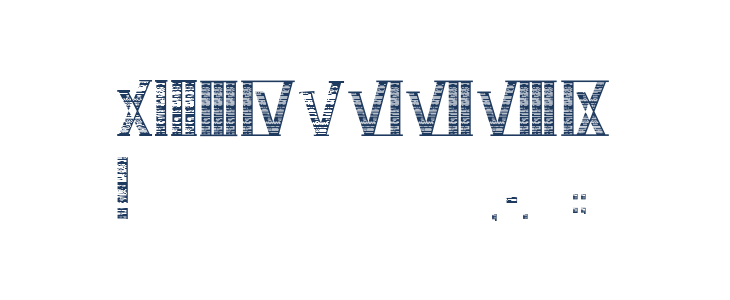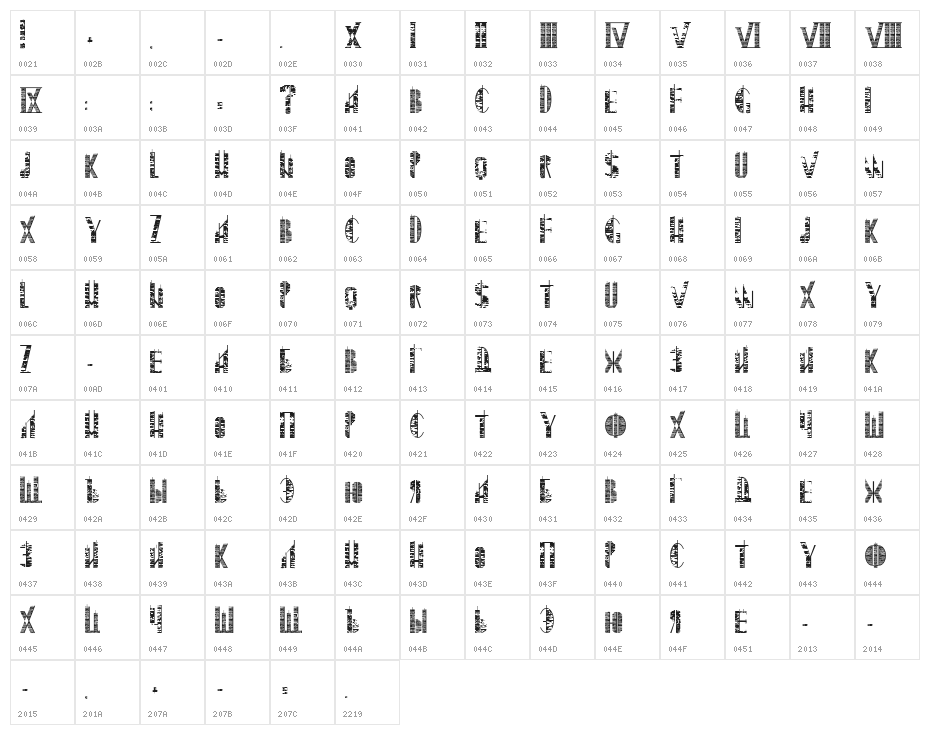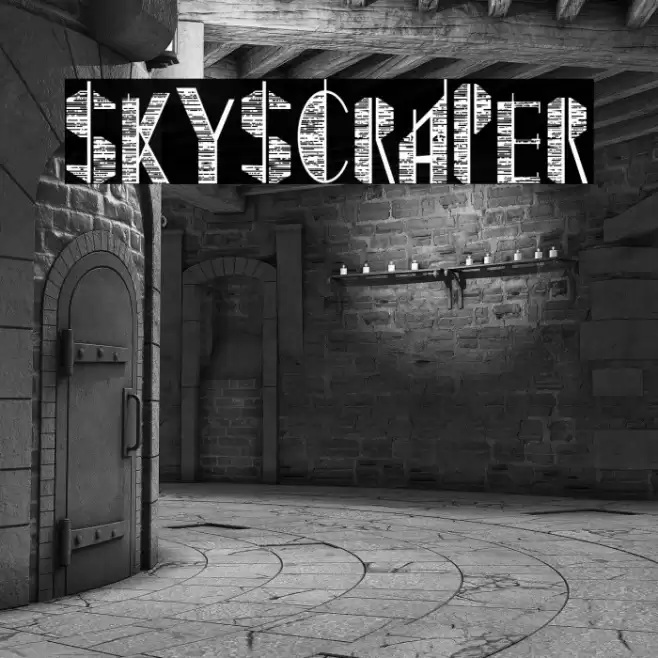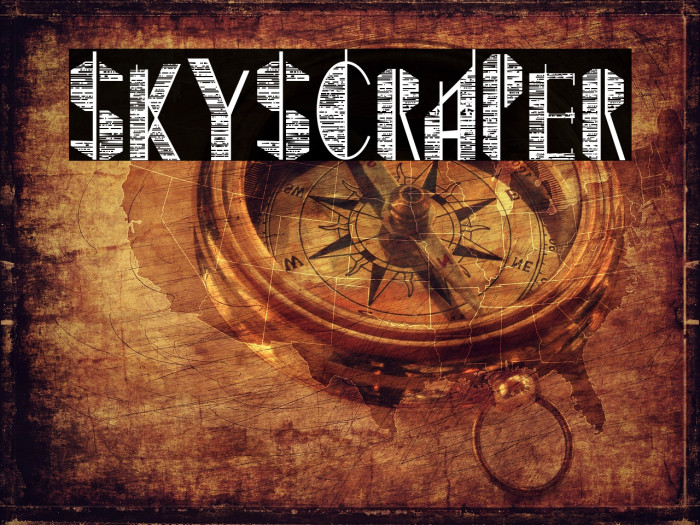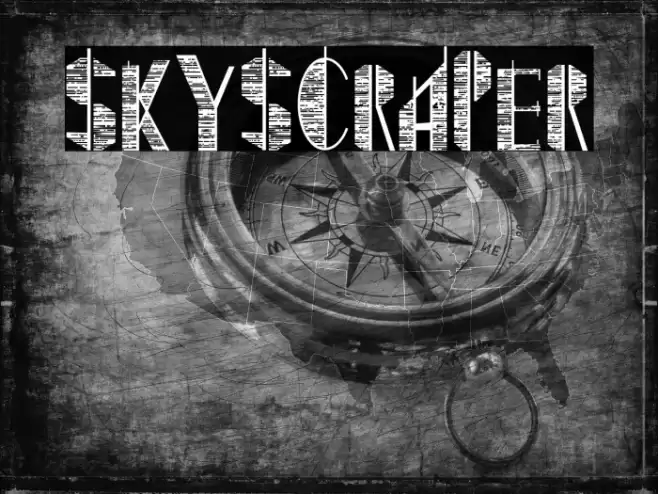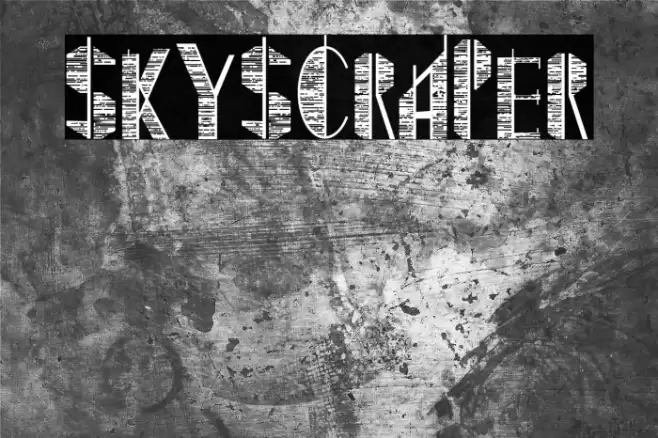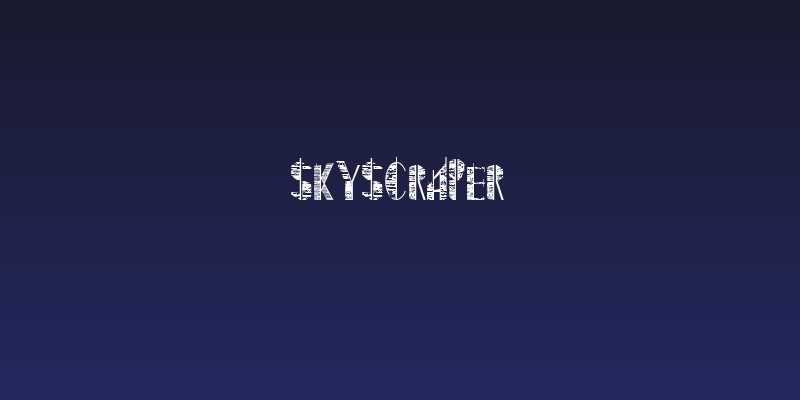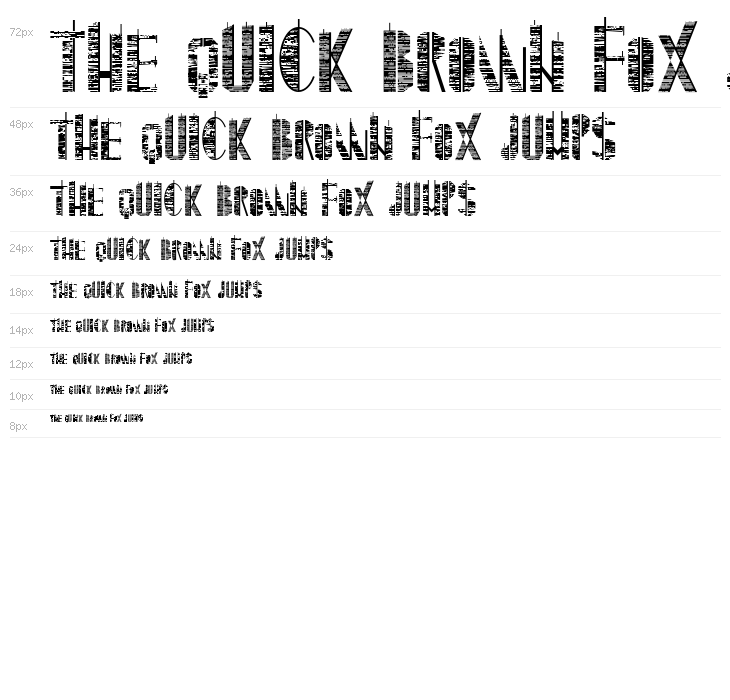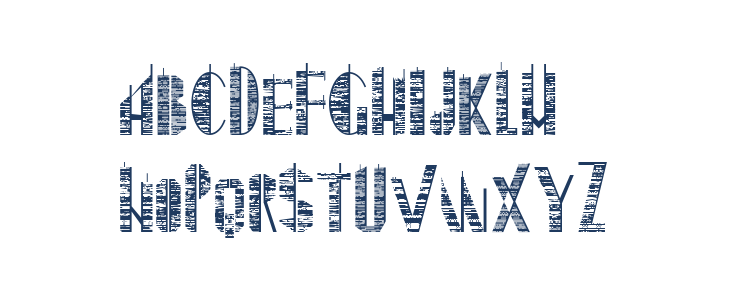
Skyscraper Font
Skyscraper Description
This font features a unique and striking design that mimics the appearance of skyscrapers, with each character resembling a tall building. The letters are constructed with vertical lines and intricate detailing that give a sense of depth and architectural complexity. The uppercase and lowercase letters maintain a consistent style, with the uppercase being more prominent and bold. The numbers and special characters are also designed to match the architectural theme, making the font cohesive and visually appealing. This font is ideal for projects that require a modern and urban aesthetic, capturing the essence of cityscapes and contemporary design.
| Proposed Projects | Ideal for urban-themed posters, architectural magazines, city branding, and modern design projects. |